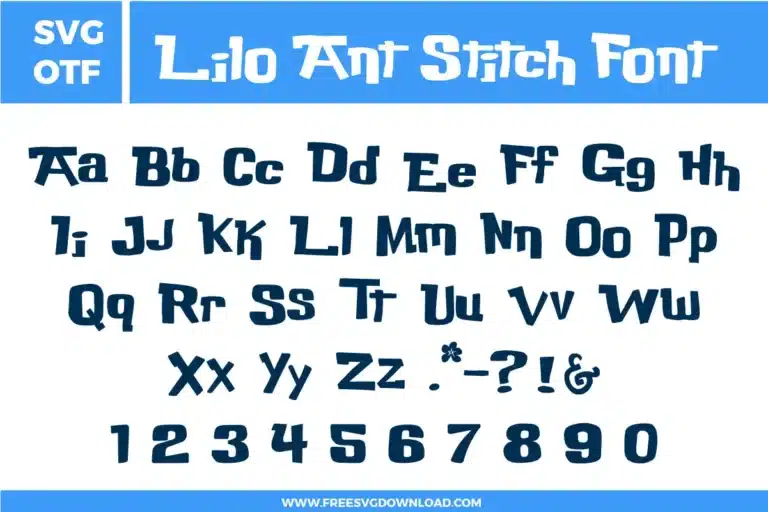
In your software, use the ‘Align Bottom’ tool for the baseline first. Then, manually adjust the ‘Kerning’ (character spacing). For fonts with irregular heights like this one, visual spacing (optical kerning) usually looks better than mathematically perfect spacing.